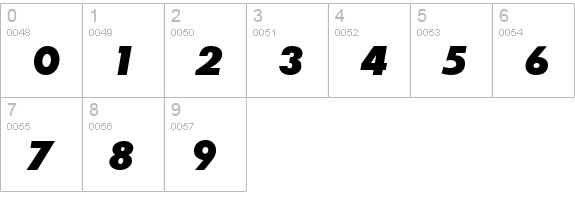
Bougan Black SSi Extra Bold Italic is a maximum-weight, dramatic, italic variant in the Bougan typeface family \xE2\x80\x94 well suited to maximum-impact headlines, posters, and packaging.
Bougan Black SSi Extra Bold Italic font is a striking and modern typeface that exudes confidence and sophistication. Its bold strokes and elegant italics make it perfect for headlines, titles, and branding projects that require a strong visual impact. The font's sleek design and sharp angles give it a contemporary edge that will elevate any design it is used in. The best part? Bougan Black SSi Extra Bold Italic font is available for free download at FontsMarket.com. This means you can easily access this powerful font and incorporate it into your projects without any cost. Whether you're a designer looking to add a bold flair to your work or a business seeking a distinctive typeface for your branding, Bougan Black SSi Extra Bold Italic font is a versatile choice that won't break the bank. Download it today and unleash the full potential of your designs!